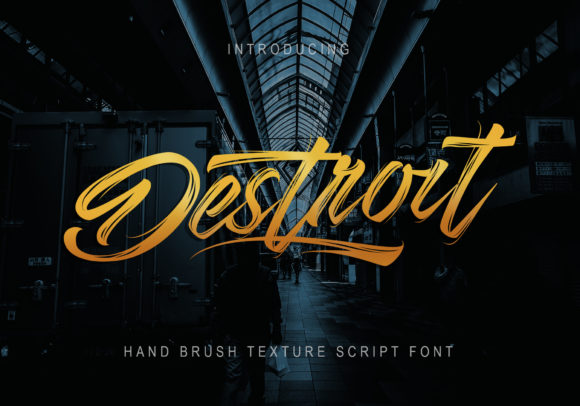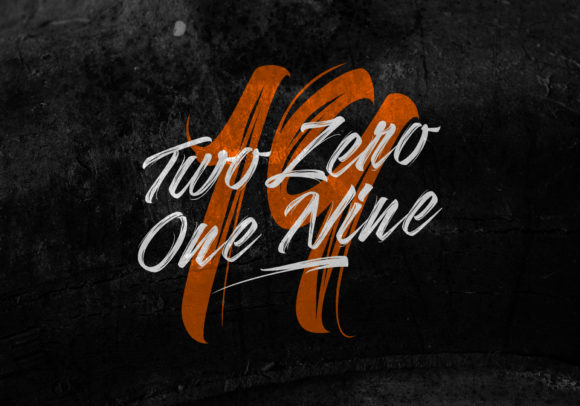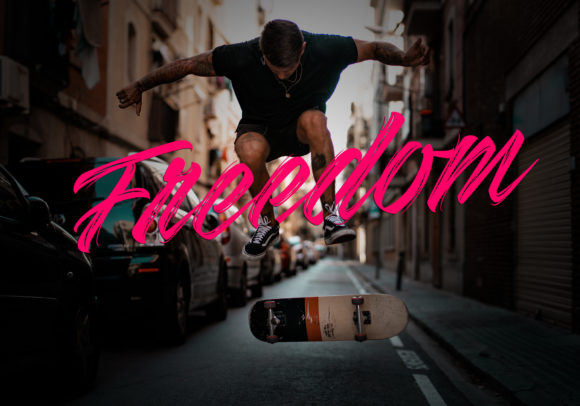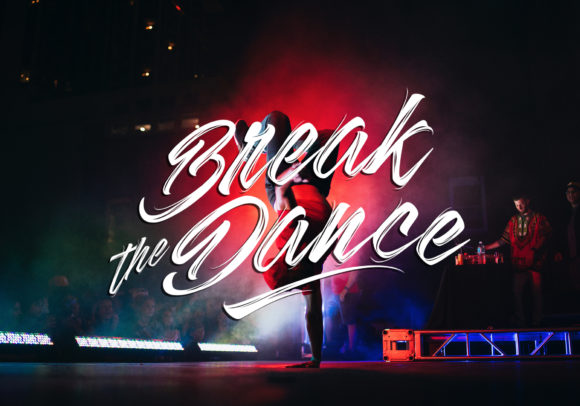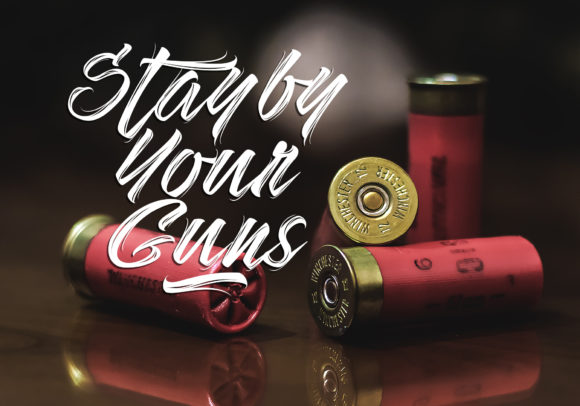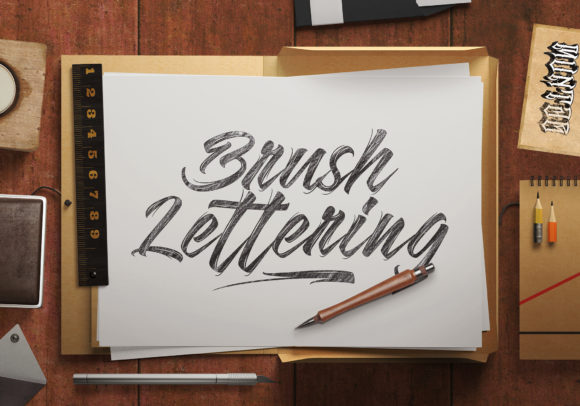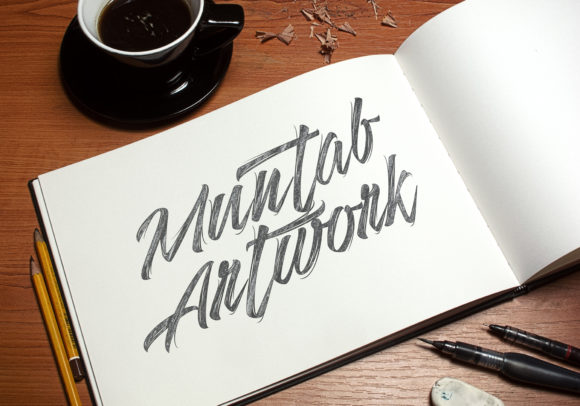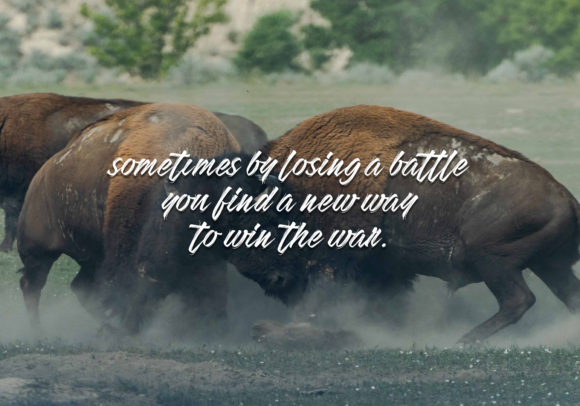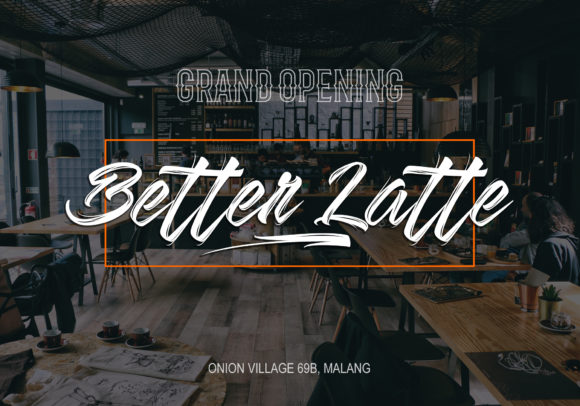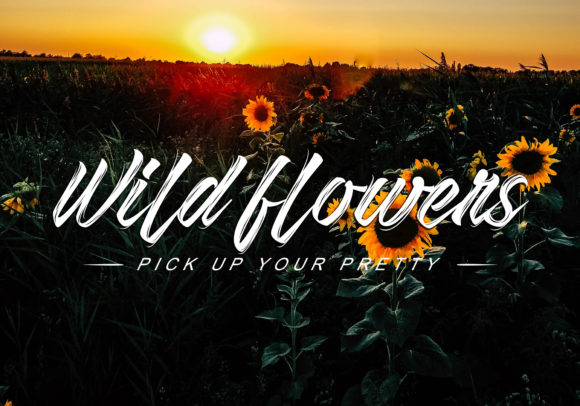
Destroit Font
About Destroit Font
Destroit is a strikingly bold and urban handwritten font with a powerful feel. It will turn any design idea into a true stand out!